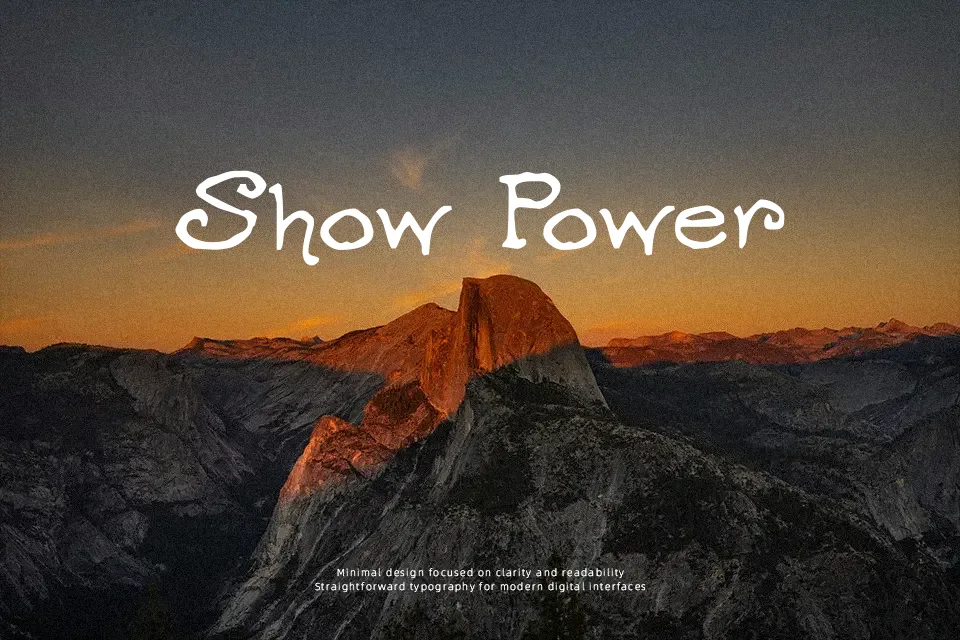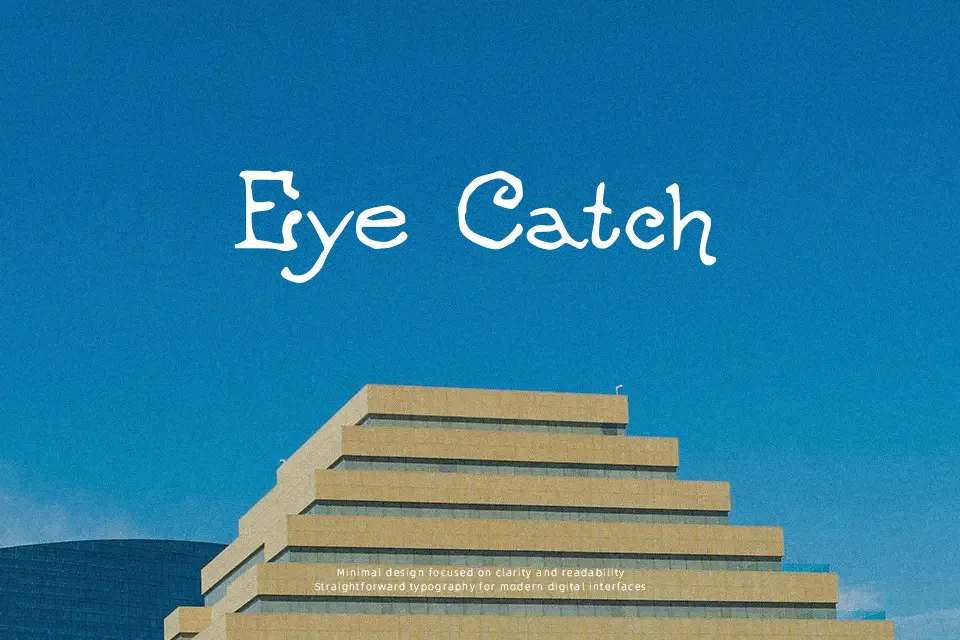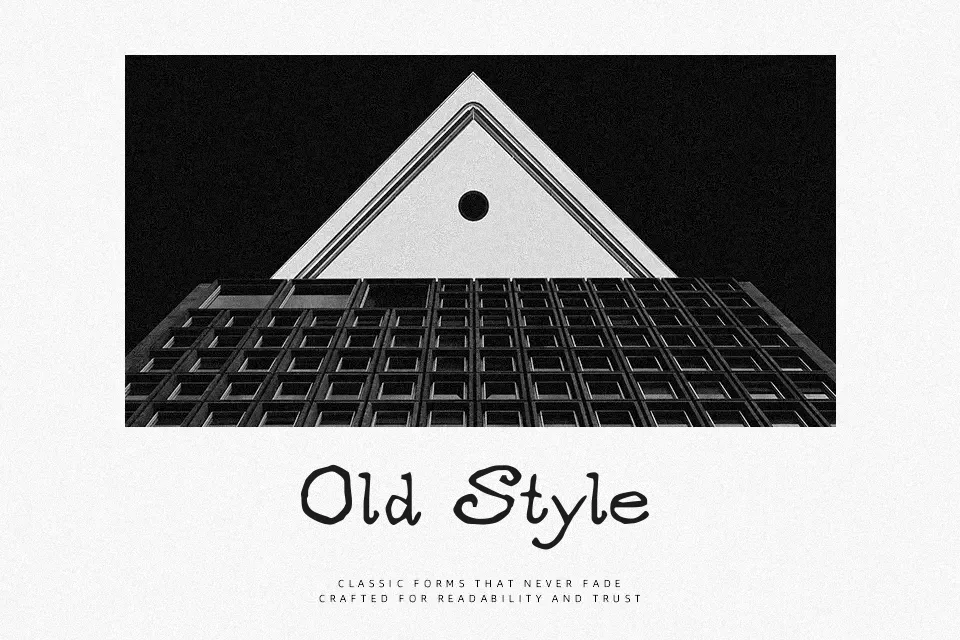
Ogdred Weary Font
Ogdred Weary Font presents an expressive decorative design characterized by curled serifs, idiosyncratic loops, and hand-drawn stroke variation. Its proportions remain deliberately uneven, creating an eccentric typographic rhythm that feels reminiscent of vintage storybook illustrations. The letterforms exhibit moderate stroke contrast with generous horizontal spacing to preserve individual character shapes. This distinctive construction performs exceptionally well in large display settings such as gothic book covers, festival signage, and atmospheric packaging labels. However, the ornate flourishes and irregular line widths become difficult to parse at reduced scales, making the typeface poorly suited for dense body text or compact interface copy.
Best For: vintage book cover titles, gothic storybook headlines, theatrical event posters, atmospheric product packaging
Not Ideal For: dense editorial body text, technical documentation, mobile application interfaces, legal contracts
Perfect for halloween, headline, and invitation, with a artistic and decorative style.